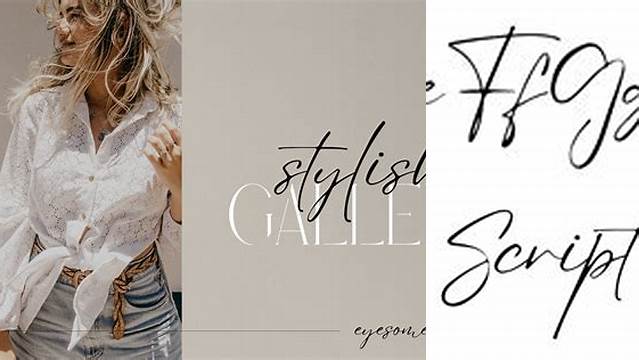
Understanding the Allure of Eyesome Script OTF Font
The digital world is constantly evolving, and with it, the way we present information. Typography plays a massive role in this evolution, influencing everything from brand recognition to user engagement. Among the vast array of fonts available, script fonts have always held a special place. They evoke a sense of personality, elegance, and human touch, often reminiscent of handwritten letters or classic calligraphy. The Eyesome Script OTF font is a prime example of this captivating category. Its graceful flow and distinctive style make it a standout choice for designers, bloggers, and anyone looking to add a touch of sophistication to their projects. This font isn't just about letters; it's about conveying emotion and creating a memorable visual experience. Whether you're crafting a wedding invitation, designing a unique logo, or even sprucing up your social media captions, the Eyesome Script OTF font offers a versatile and stylish solution. Its OpenType (OTF) format further enhances its usability, providing advanced typographic features that can elevate your design work to professional levels. This article is your comprehensive guide to understanding, finding, and effectively using this beautiful font. We'll delve into why it's so popular, where you can snag a free download, and how to best leverage its unique characteristics to make your creations truly shine. Get ready to discover the magic of the Eyesome Script OTF font and unlock its potential for your next big project!
Exploring the Aesthetic Appeal of Eyesome Script
When we talk about fonts, aesthetics are paramount. The Eyesome Script OTF font truly delivers on this front, offering a visual experience that is both captivating and refined. Its primary draw lies in its elegant, flowing lines that mimic the fluidity of natural handwriting. Unlike rigid, blocky fonts, Eyesome Script breathes life into text, imbuing it with a sense of personality and warmth. Each letter is crafted with care, featuring subtle curves and graceful connections that create a harmonious visual rhythm. This makes it exceptionally well-suited for projects where a personal and artisanal touch is desired. Think wedding invitations, bespoke stationery, handcrafted product labels, or even personalized gift tags â anywhere you want to convey a sense of intimacy and bespoke craftsmanship. The Eyesome Script OTF font excels at adding a touch of luxury and sophistication without appearing overly formal or stuffy. It strikes a perfect balance, offering a sense of occasion and charm that can elevate even the simplest of designs. Furthermore, the OpenType (OTF) format means you benefit from advanced typographic features. These can include ligatures (where certain letter combinations are joined together for a smoother look), alternate characters, and stylistic sets, all of which allow for even greater customization and refinement of your text. This level of control is invaluable for designers seeking to create truly unique and polished visual communications. The overall aesthetic of Eyesome Script is one of effortless beauty, making it an enduring favorite for those who appreciate the finer details in typography.
Why Choose Eyesome Script OTF Font for Your Projects?
So, why should the Eyesome Script OTF font be your go-to choice for certain design endeavors? The answer lies in its unique blend of elegance, readability, and versatility. Firstly, its script-like nature lends a highly personal and engaging feel to any text. In an age saturated with digital communication, a font that can convey human touch and warmth is incredibly valuable. Eyesome Script achieves this masterfully, making your message feel more direct and heartfelt. Secondly, while many script fonts can be difficult to read, especially in smaller sizes, Eyesome Script is designed with a good balance of flourish and legibility. The letterforms are clear, and the spacing is well-judged, ensuring that your message is not only beautiful but also easily understood. This is crucial for everything from website headlines to marketing materials. The Eyesome Script OTF font format itself is another significant advantage. OTF fonts are generally more robust and feature-rich than their TrueType (TTF) counterparts. They contain more information about the font, including advanced typographic features like ligatures, stylistic alternates, and swashes. These features allow for greater creative control, enabling you to fine-tune your text to achieve a truly custom look. For instance, you might use ligatures to connect letters seamlessly or choose alternate character designs for a unique flair. Lastly, its versatility cannot be overstated. Whether youâre designing a wedding invitation that needs a romantic touch, a brand logo that requires a sophisticated signature, or even social media graphics that aim for an artisanal feel, Eyesome Script adapts beautifully. Itâs a font that doesn't just sit there; it actively enhances the overall message and aesthetic of your design, making it a truly worthwhile addition to any designer's toolkit. Guys, this font is a gem for adding that extra special something.
How to Utilize Eyesome Script OTF in Your Designs
Once youâve successfully downloaded the Eyesome Script OTF font, the real fun begins: incorporating its charm into your creative projects. The beauty of a script font like Eyesome is its ability to transform the feel of your text instantly. For headings and titles, it commands attention with its elegance. Try using it for the main title on a blog post, a prominent headline on a flyer, or the name on a wedding invitation. The visual impact is immediate and sophisticated. For body text, however, itâs generally advisable to use Eyesome Script sparingly. While itâs designed for good readability, long passages in a script font can become tiresome for the reader. Instead, consider using it for short bursts of text â perhaps a quote, a special announcement, or a call to action. Pairing Eyesome Script with a complementary sans-serif or serif font is also a classic design technique. Use the script font for your main decorative element (like a title or a key phrase) and a simpler, cleaner font for the accompanying information. This contrast creates visual interest and ensures that your overall design remains balanced and easy to digest. The Eyesome Script OTF font format, being OpenType, unlocks even more potential. Explore the advanced features available in your design software (like Adobe Photoshop, Illustrator, or even Microsoft Word). Look for options like ligatures, which automatically connect certain letter pairs for a smoother, more professional look. You might also find stylistic alternates or swashes that allow you to customize individual letters, adding a unique flourish. Experimentation is key! Play around with different sizes, colors, and arrangements. Try using it in a vertical orientation for a unique graphic element or apply subtle textures. The goal is to let the fontâs natural beauty shine while ensuring it serves the overall purpose of your design, making it both visually appealing and effective. Don't be afraid to get creative, guys!
Ensuring Legibility with Eyesome Script
Legibility is a cornerstone of effective communication, and when working with a stylized font like the Eyesome Script OTF font, it's a factor that deserves careful consideration. Script fonts, by their very nature, often incorporate flourishes, ligatures, and a more fluid letterform structure than standard sans-serif or serif fonts. This can sometimes pose challenges for readability, particularly in smaller sizes or for extended reading. However, the Eyesome Script OTF font is generally praised for striking a good balance between aesthetic appeal and clear communication. The designers have put thought into ensuring that the letterforms are distinct enough to be recognized easily, and the spacing between letters and words is optimized to prevent them from running together. When youâre using Eyesome Script, especially if youâre considering it for more than just a decorative headline, pay close attention to the context and size. For major headlines, invitations, or short, impactful statements, its legibility is usually excellent. You can really let its elegant style shine. However, if youâre thinking about using it for subheadings or even small blocks of text, itâs wise to test it out. Print a sample or view it at the intended size on screen. Does it remain clear? Are there any letter combinations that look a bit too merged? Often, designers find success by using the Eyesome Script OTF font for primary titles and then pairing it with a highly legible sans-serif or serif font for any supporting text. This creates a visual hierarchy and ensures that essential information is easily accessible. Additionally, utilizing the OpenType features can sometimes enhance legibility. For instance, if certain automatic ligatures make a word look unclear, you might be able to disable them individually in your design software. Conversely, ensuring appropriate tracking (the overall spacing between characters) can also make a difference. Ultimately, the goal is to harness the beauty of Eyesome Script without sacrificing the clarity of your message. Itâs about finding that sweet spot where style meets substance, making sure your audience can appreciate the fontâs charm and understand your content effortlessly. Itâs a delicate dance, but totally doable, guys!
Best Practices for Using Script Fonts Like Eyesome
Script fonts, with their inherent elegance and personal touch, can be incredibly powerful tools in a designerâs arsenal. The Eyesome Script OTF font exemplifies this, offering a graceful flow that can elevate a wide range of projects. However, like any specialized tool, using script fonts effectively requires understanding some best practices to avoid common pitfalls. Firstly, know your audience and your message. A script font like Eyesome is perfect for conveying romance, celebration, luxury, or a handcrafted feel. Itâs ideal for wedding invitations, elegant branding, gourmet food packaging, or artistic portfolios. It might be less suitable for technical documents, corporate reports, or childrenâs educational materials where clarity and simplicity are paramount. Secondly, use script fonts strategically. They excel as headline fonts, title treatments, or for short, impactful phrases. Avoid using them for large blocks of body text, as the stylistic flourishes can quickly become distracting and reduce readability. Think of it as the accent in your design â powerful when used deliberately, but overwhelming if overused. Thirdly, consider the pairing. A common and effective technique is to pair your script font with a contrasting, simpler font. A clean sans-serif or a classic serif font works wonderfully alongside Eyesome Script. This contrast creates visual interest and ensures that the script font stands out as a deliberate design choice, while the other font handles the bulk of the information clearly. Fourthly, leverage OpenType features. The OTF version of Eyesome Script likely offers features like ligatures, stylistic alternates, and swashes. These can add a professional polish and unique flair. Experiment with them in your design software to see how they enhance the flow and character of your text. Finally, test for legibility. Always preview your design at the intended size and context. Ensure that the words are clear and easy to read, especially if the script font is used for anything beyond a brief title. By following these guidelines, you can ensure that the Eyesome Script OTF font not only adds aesthetic beauty to your projects but also enhances communication and creates a polished, professional result. Itâs all about making informed choices, guys!
Combining Eyesome Script with Other Typography Styles
One of the most effective ways to showcase the unique beauty of the Eyesome Script OTF font is by expertly pairing it with other typographic styles. This technique, known as font pairing, creates visual interest, establishes hierarchy, and guides the readerâs eye through your design. When combining Eyesome Script with other fonts, the key principle is contrast. Because Eyesome Script is characterized by its flowing, often decorative, and personal feel, it pairs best with fonts that offer a distinct difference in style. Consider a clean, geometric sans-serif font. Think of typefaces like Montserrat, Lato, or Open Sans. These fonts are typically straightforward, with clear letterforms and minimal embellishment. Placing Eyesome Script as a headline or a key call-to-action and using a sans-serif for the accompanying body text creates a beautiful juxtaposition. The elegance of the script is highlighted against the simplicity of the sans-serif, making both fonts stand out. Another excellent pairing option is a classic serif font, such as Georgia, Times New Roman, or Garamond. Serif fonts have small decorative strokes (serifs) at the ends of their letterforms, giving them a traditional and often more formal feel. Combining Eyesome Script with a serif font can evoke a sense of timeless sophistication, making it ideal for brands aiming for a classic or luxurious image. The contrast here comes from the difference between the handwritten-like fluidity of the script and the structured, refined nature of the serif. When pairing, think about the mood you want to create. If youâre aiming for a modern, chic look, a sans-serif might be the way to go. For something more vintage or opulent, a serif could be a better match. Itâs also important to ensure that the overall weight and x-height (the height of lowercase letters like âxâ) of the fonts are somewhat compatible, or at least that the contrast is intentional and pleasing. The Eyesome Script OTF font itself might also have stylistic alternates within its OTF features that can be used to complement its primary style, offering subtle variations without introducing a completely different font. Always test your pairings by viewing them at different sizes and in different contexts to ensure they work harmoniously and effectively communicate your intended message. Guys, getting the font pairing right can truly make or break a design!
When to Avoid Using Eyesome Script Font
While the Eyesome Script OTF font is undeniably beautiful and versatile, itâs crucial to recognize that not every design scenario calls for its elegant flourish. Understanding when not to use a script font is just as important as knowing when to deploy it effectively. One primary situation to avoid Eyesome Script is for extensive body text. As mentioned before, script fonts, even those designed for good readability like Eyesome, can become tiring to read in long paragraphs. The visual movement and stylistic elements that make them appealing for headlines can hinder comprehension when applied to large chunks of text. If your project requires detailed information or a lengthy explanation, opt for a clean sans-serif or serif font that prioritizes legibility. Another context to steer clear of Eyesome Script is in highly formal or corporate environments where a more traditional, authoritative, or minimalist aesthetic is expected. For instance, using it for a law firmâs branding, a financial institutionâs annual report, or a technical manual would likely be inappropriate and detract from the professional image. Similarly, for designs targeting very young children, where clear, simple letter recognition is key, a playful but straightforward font would be a better choice than a decorative script. The Eyesome Script OTF font might also be less suitable for designs where extreme clarity and legibility are paramount at very small sizes, such as on tiny labels, favicons, or some app interface elements. While it performs well for its intended use, pushing its limits in such micro-contexts could compromise its effectiveness. Always consider the end goal of your design: Is it to convey information quickly and efficiently, or to evoke a specific mood and aesthetic? If the former is the priority and requires dense text, it's best to leave Eyesome Script for more decorative applications. Remember, the most effective use of any font, including Eyesome Script OTF, comes from understanding its strengths and weaknesses and applying it appropriately to the context. Donât force a beautiful script into a role where a simple workhorse font would serve better, guys.